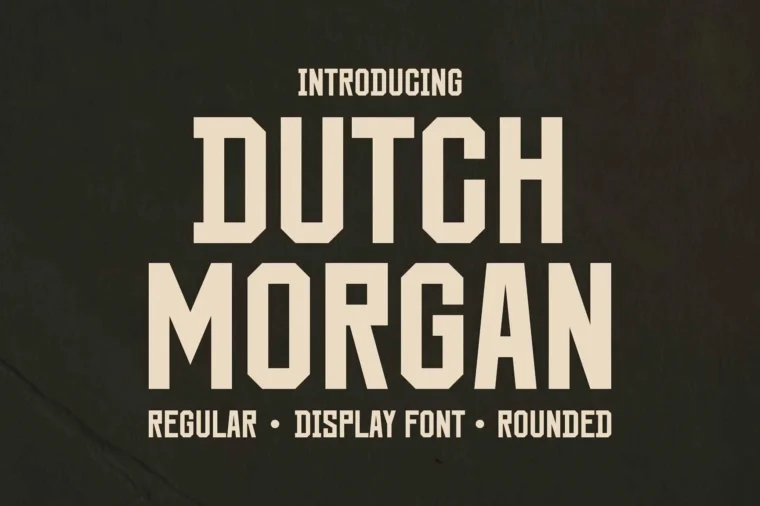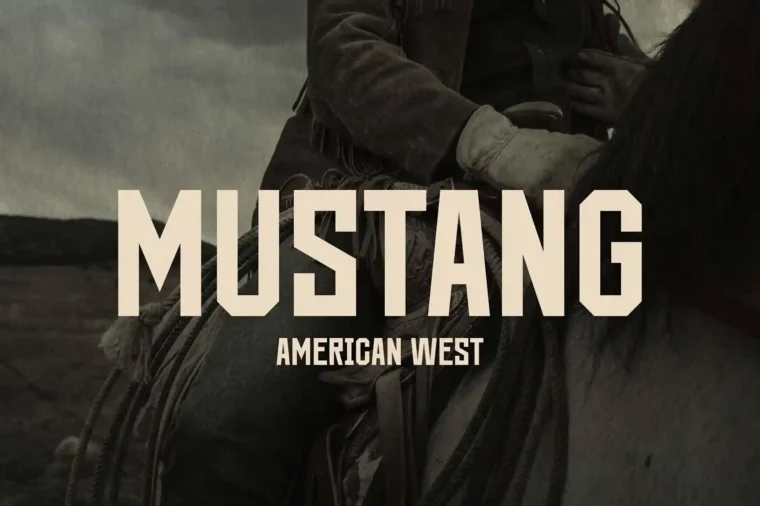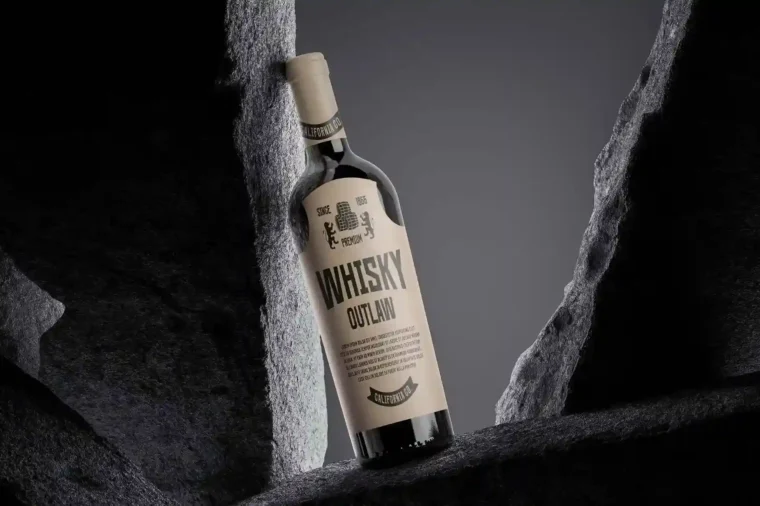
Capture the essence of the Wild West with Dutch Morgan, a bold retro western slab serif display font designed to bring a rugged, vintage aesthetic to your projects. Whether you’re creating branding, posters, signage, or merchandise, this Western-style font delivers a strong and nostalgic feel that instantly stands out.
Why Choose Dutch Morgan?
Authentic Western Vibe – Inspired by old saloon signs, wanted posters, and cowboy-era typography.
Bold & Eye-Catching – Thick slab serif letters with a sturdy and commanding presence.
Versatile for Various Projects – Perfect for branding, packaging, logos, apparel, headlines, and more.
High-Quality Design – Crafted for sharp, clean readability in both print and digital designs.
Full Character Set – Uppercase, lowercase, numbers, and punctuation.
Multilingual Support – Includes accented characters for various languages.
Perfect For:
Western-Themed Branding & Logos
Vintage Posters & Signage
T-Shirt & Merchandise Designs
Book Covers & Editorial Projects
Add a rugged, vintage charm to your designs with Dutch Morgan, the ultimate retro western slab serif font. Perfect for bold headlines, branding, and creative projects, this font helps your work stand out with a timeless Western appeal. Download now and bring the spirit of the Old West to your designs.